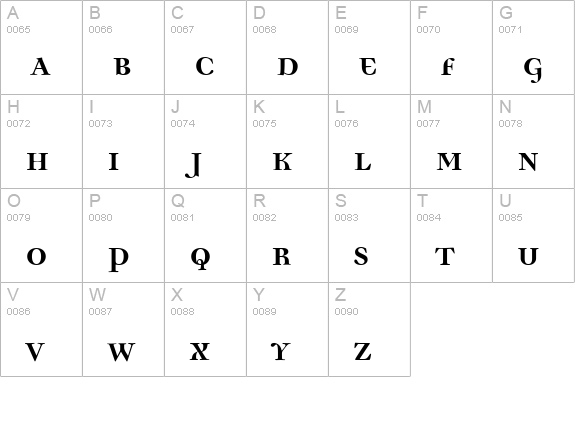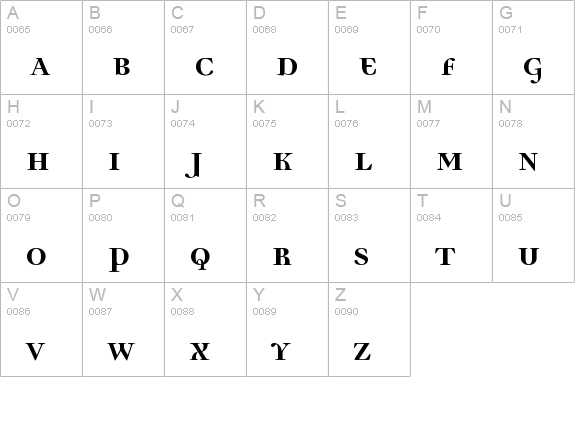
Democratica-Bold is a strong, high-contrast variant in the Democratica typeface family \xE2\x80\x94 well suited to headlines, attention-grabbing titles, and strong calls-to-action.
Democratica-Bold is a striking and commanding font that exudes confidence and modernity. With its bold and impactful design, this typeface is perfect for making a strong statement in any project. The clean lines and sharp angles of Democratica-Bold give it a sleek and professional appearance, making it ideal for headlines, logos, and branding. What makes Democratica-Bold even more appealing is that it is available for free download at FontsMarket.com. This means that you can easily access and use this powerful font in your designs without any cost. Whether you're working on a print or digital project, Democratica-Bold will help you stand out and make a lasting impression. Download Democratica-Bold today and elevate your designs to the next level.